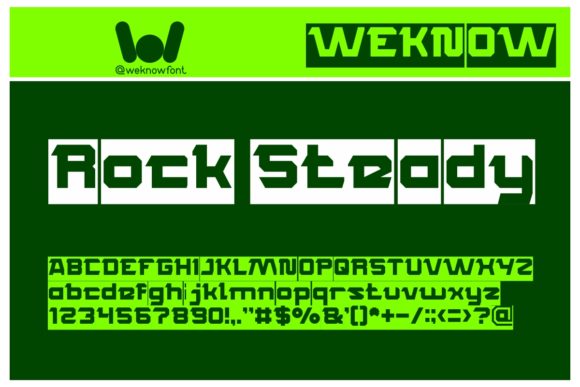
Introduction to Rocksteady Font
Have you ever stared at a blank page, wondering how to bring your creative project to life? The blank canvas can be intimidating, but the right font can make all the difference. Imagine adding a bouncy and quirky touch to your design, making it stand out in a crowded market. This is where the Rocksteady Font comes in – a unique display font that will add a fresh and contemporary twist to your designs.
With its high-quality design and transparent background, the Rocksteady Font is a valuable resource for designers looking to elevate their work. And the best part? It’s available for free download, making it accessible to designers of all levels. Whether you’re working on a creative project or simply looking to add some personality to your designs, the Rocksteady Font is a must-have. Let’s dive in and explore the world of this exciting new font.
Key Features of Rocksteady Font
- Transparent background support for seamless integration into creative projects
- High-quality design resource with precise typography for professional use
- Unique characteristics include bold, modern, and edgy design elements for adding a touch of sophistication to any creative project
- Perfect for designers, artists, and creatives working on high-quality design projects, such as logos, graphics, and typography-based art
Honest Review: Rocksteady Font
As a designer, I’m always on the lookout for high-quality design resources to elevate my creative projects. Recently, I stumbled upon the Rocksteady Font, and I’m excited to share my honest review with you.
What works well: ✨ The Rocksteady Font is incredibly versatile, with a unique blend of modern and vintage elements that make it perfect for a wide range of design projects. The font is also incredibly easy to use, with a transparent background that makes it easy to overlay on images and other design elements.
Here are some of the key features that I love about the Rocksteady Font:
- High-quality design: The Rocksteady Font is crisp and clear, making it perfect for printing and digital use.
- Transparent background: The font’s transparent background makes it easy to use in a variety of design contexts.
Limitations: ⚠️ While the Rocksteady Font is incredibly versatile, it may not be the best choice for projects that require a more formal or traditional look.
Overall impression: I’m really impressed with the Rocksteady Font, and I think it’s a great addition to any designer’s toolkit. It’s perfect for creative projects that require a unique and eye-catching look.
The Rocksteady Font is a versatile design resource that can be used in a variety of creative projects, including graphic design, digital art, and even print design. Its unique style and high-quality design make it an ideal choice for any project that requires a professional touch.